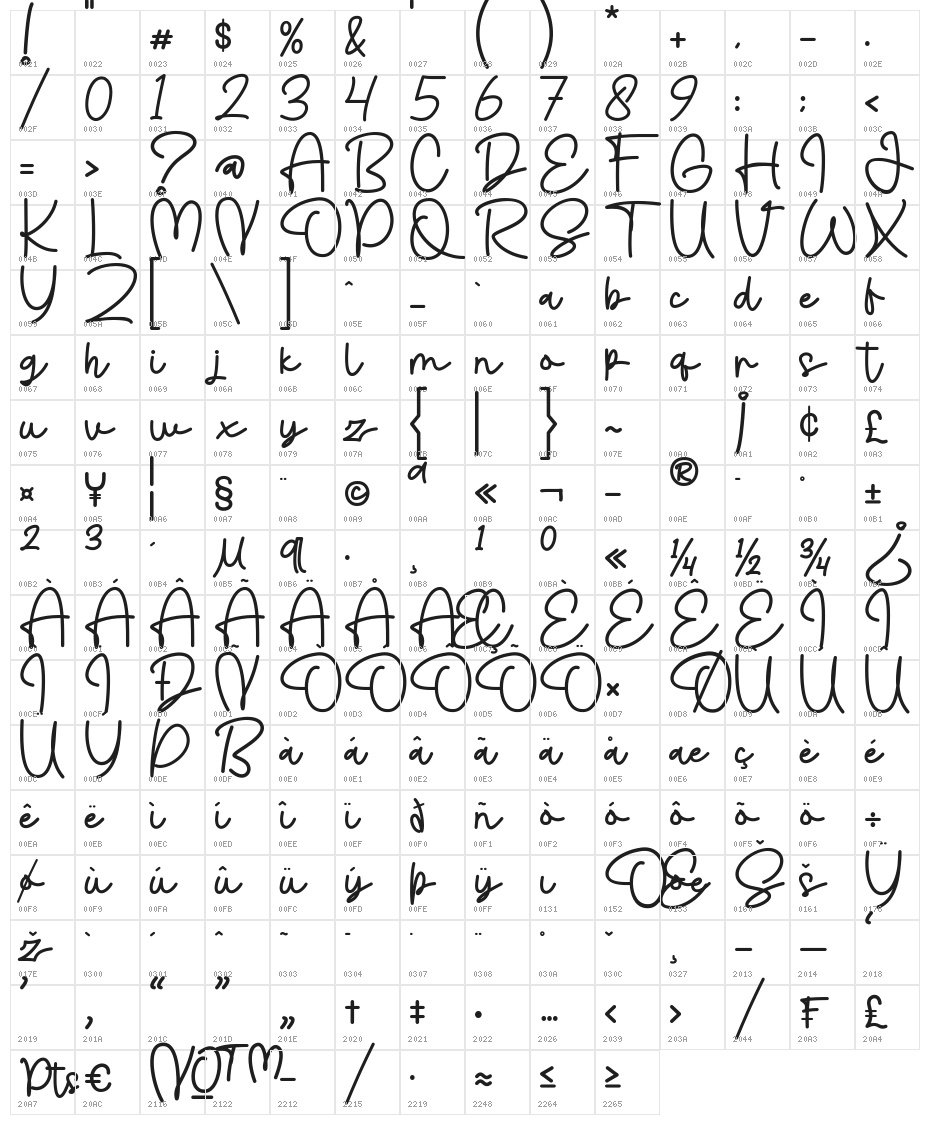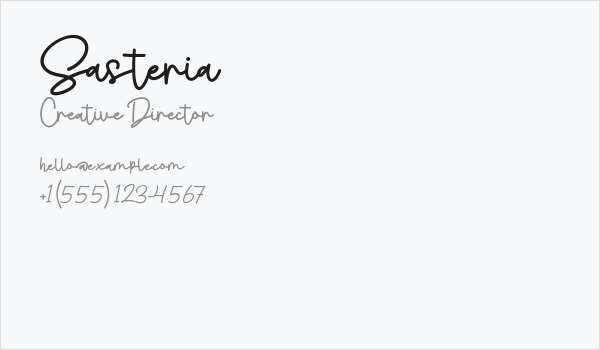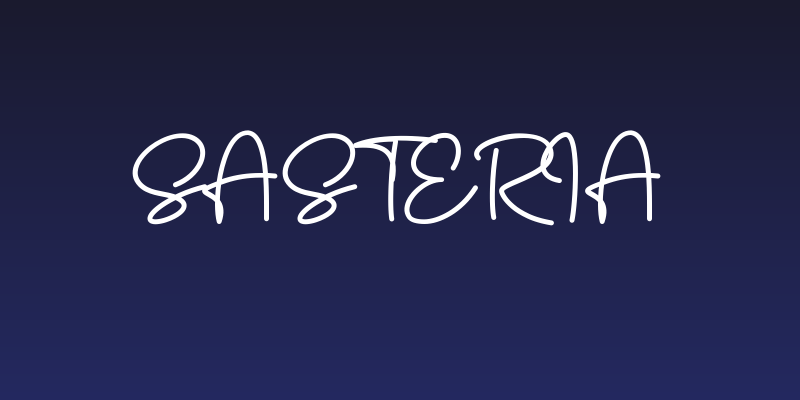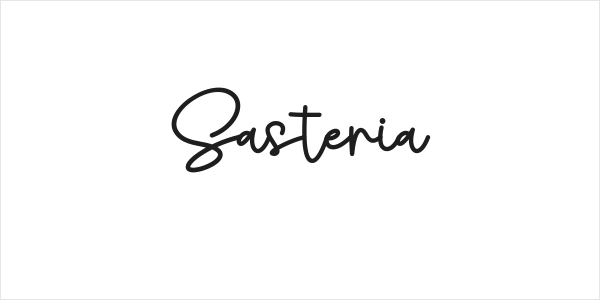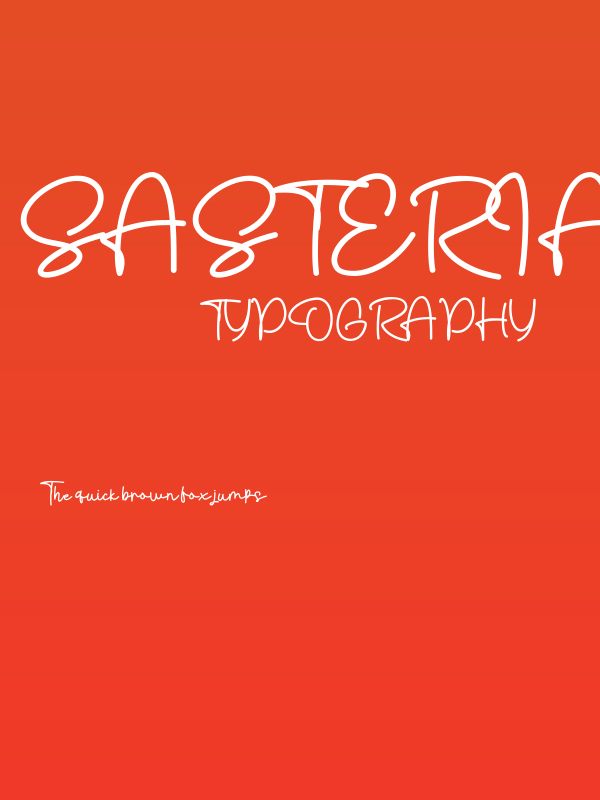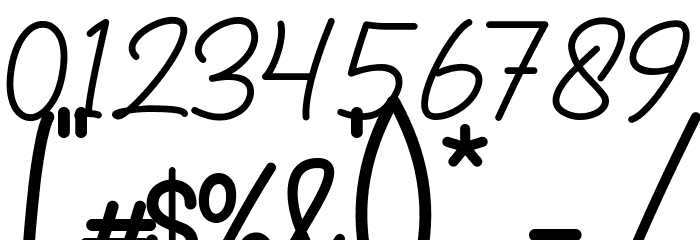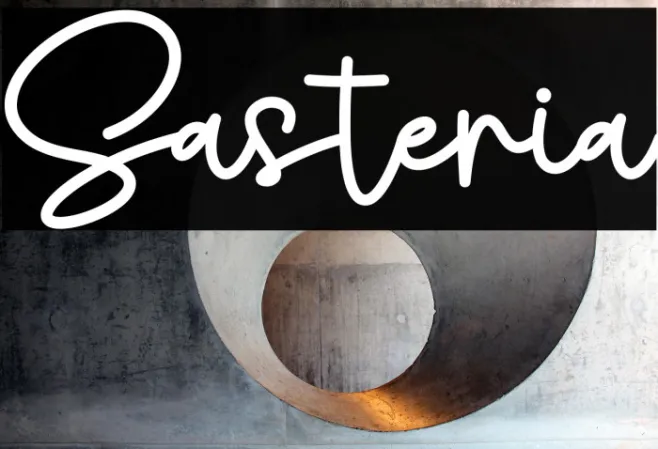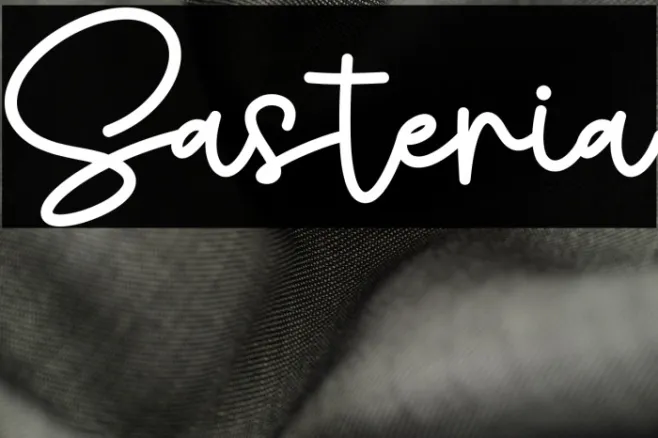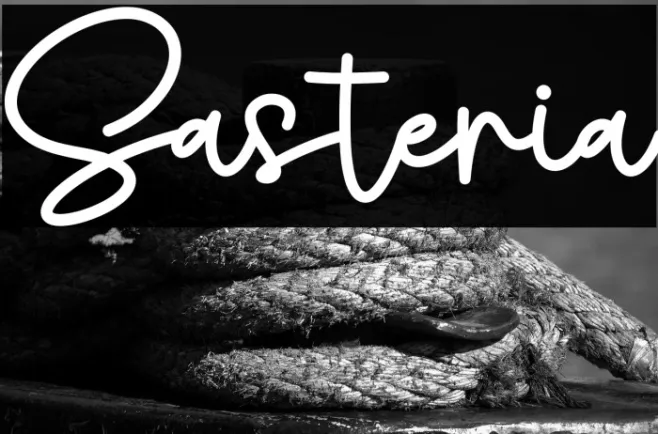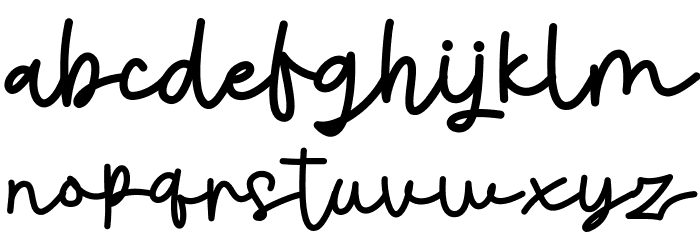
Sasteria Font
Sasteria Description
This font features a playful and casual handwritten style, characterized by smooth, flowing lines and a natural, organic feel. The uppercase letters are slightly taller and more elongated, while the lowercase letters maintain a consistent baseline with gentle curves. The numbers and special characters are designed to complement the letters, maintaining the same fluidity and informal tone. The overall appearance is friendly and approachable, making it suitable for projects that require a personal touch.
| Use Case | Logos, Invitations, Social Media |
| Proposed Projects | Ideal for greeting cards, invitations, personal branding, and social media graphics. |